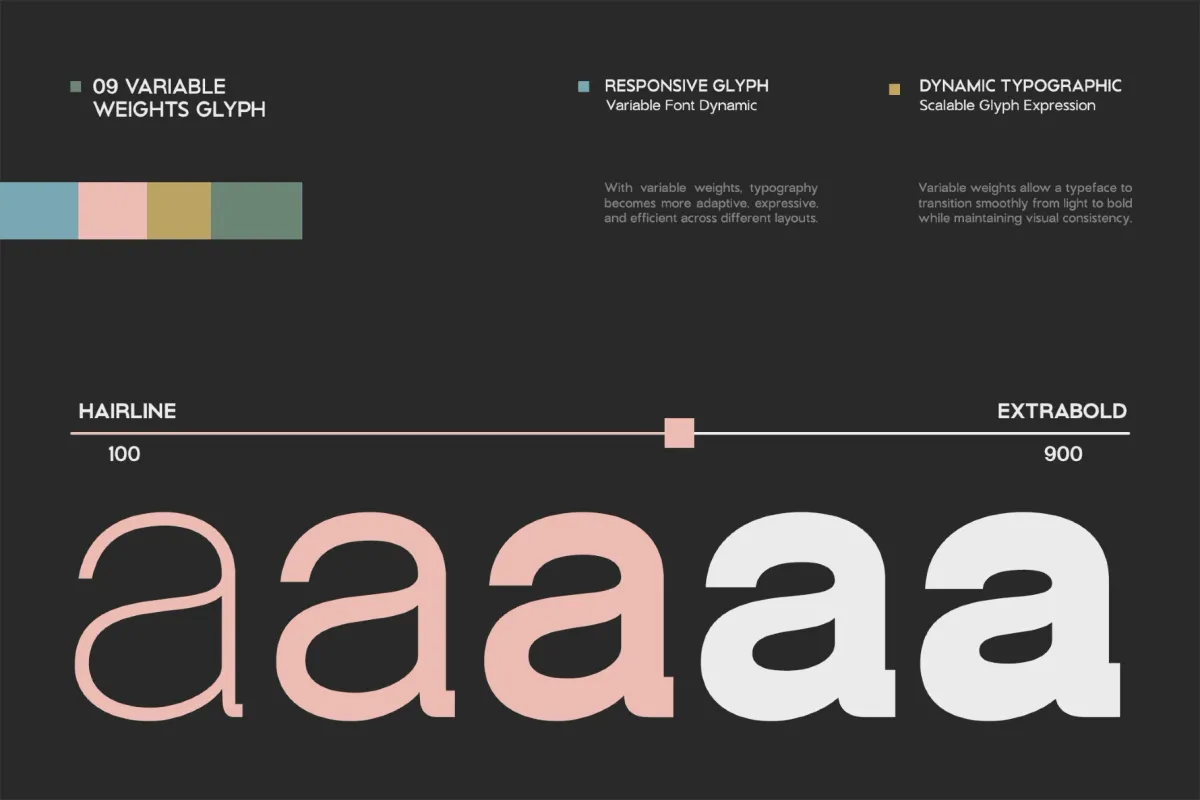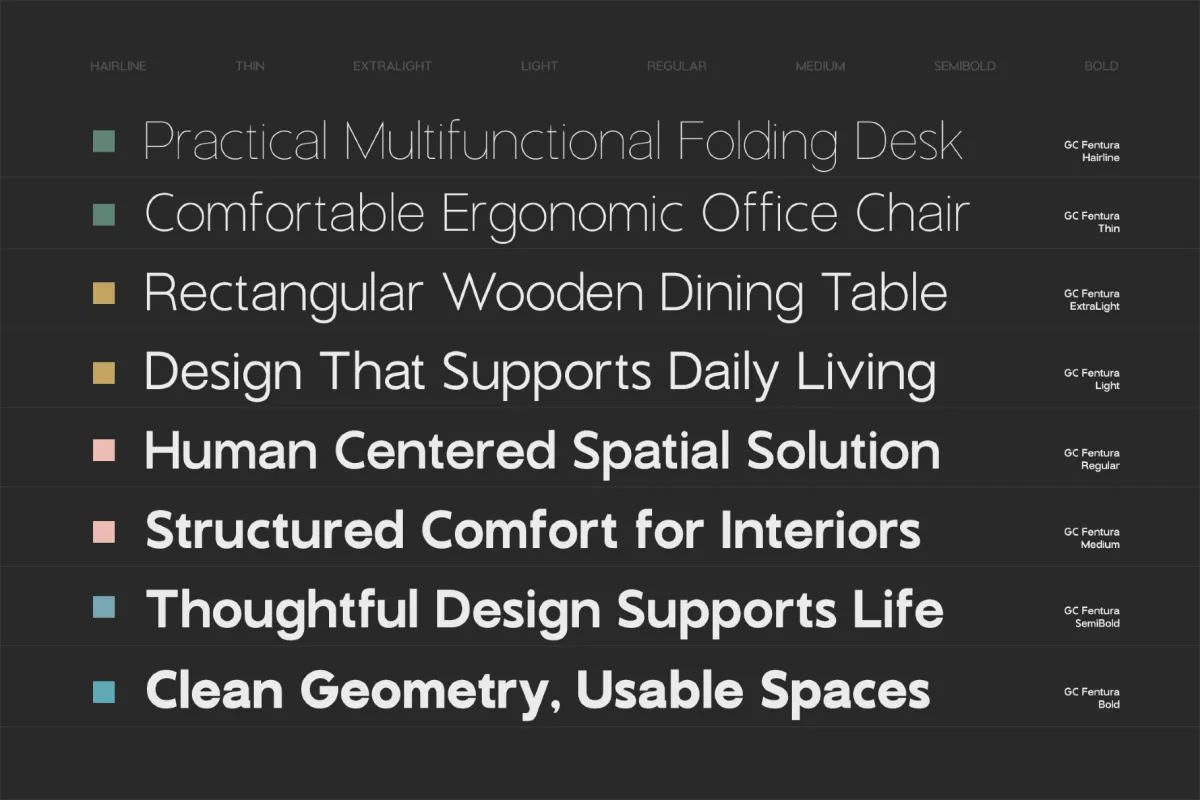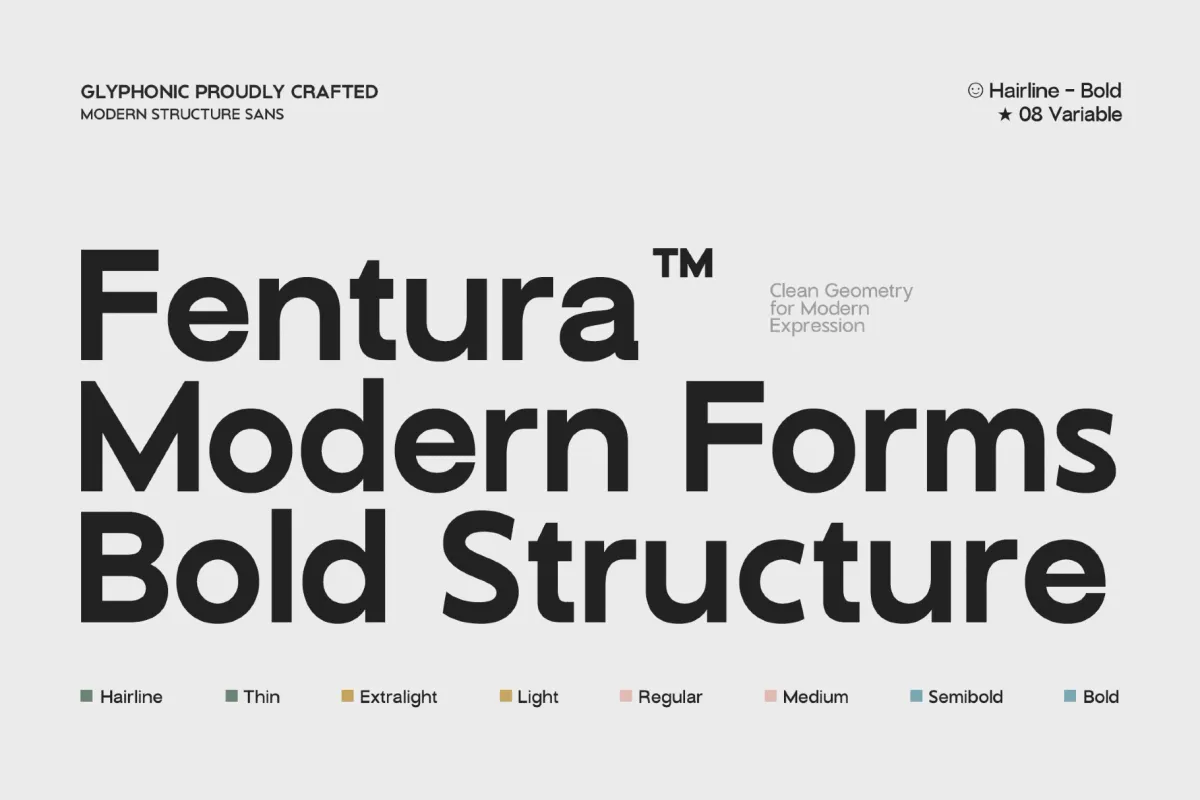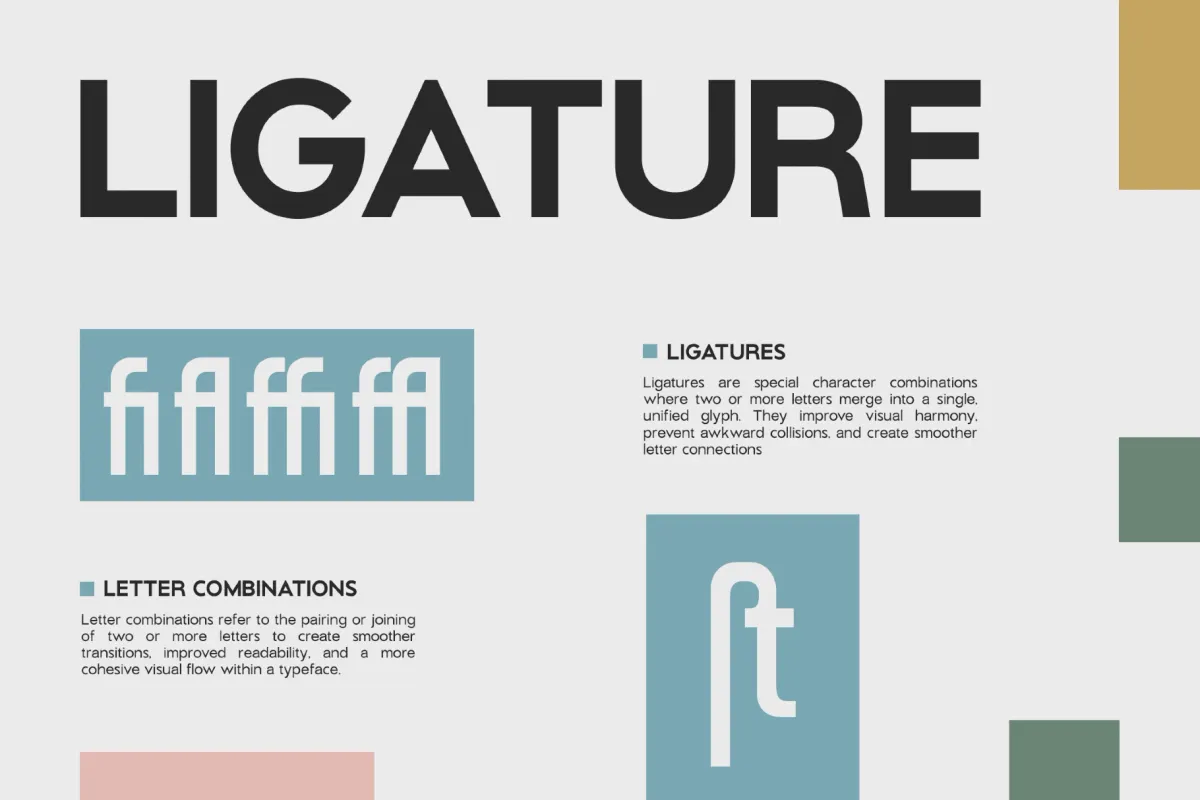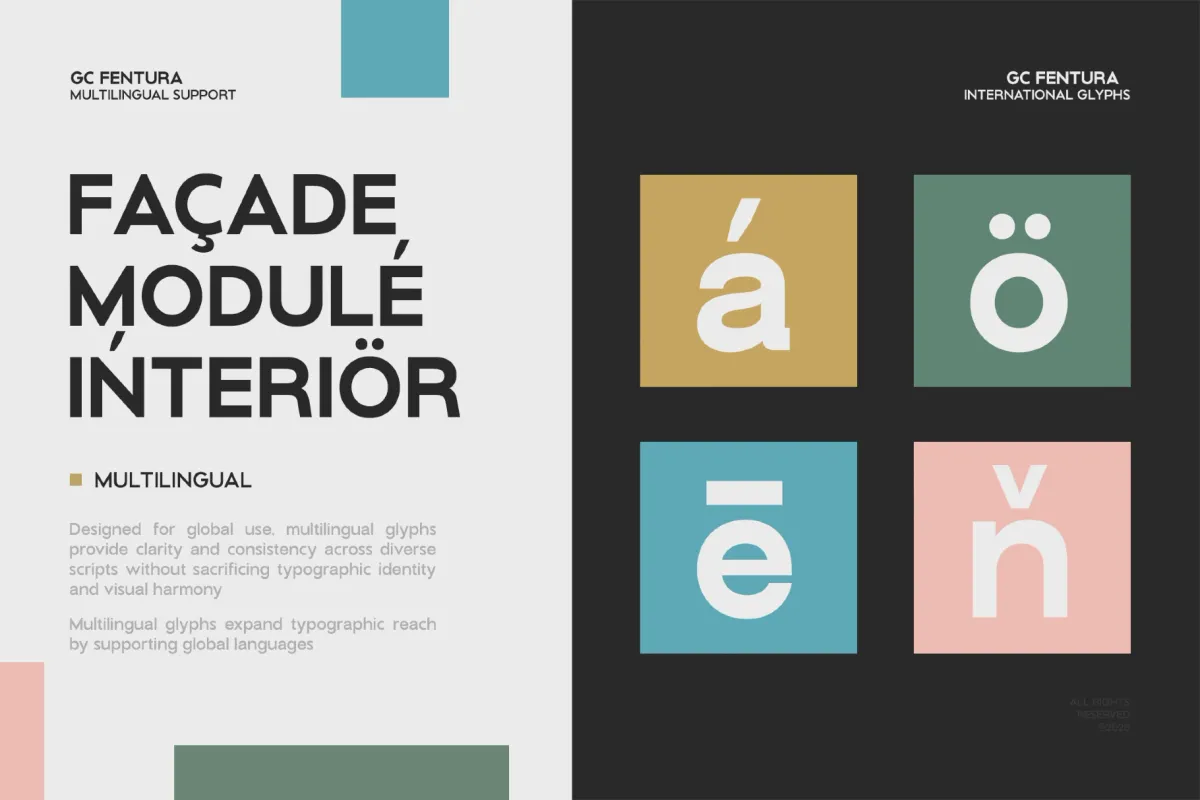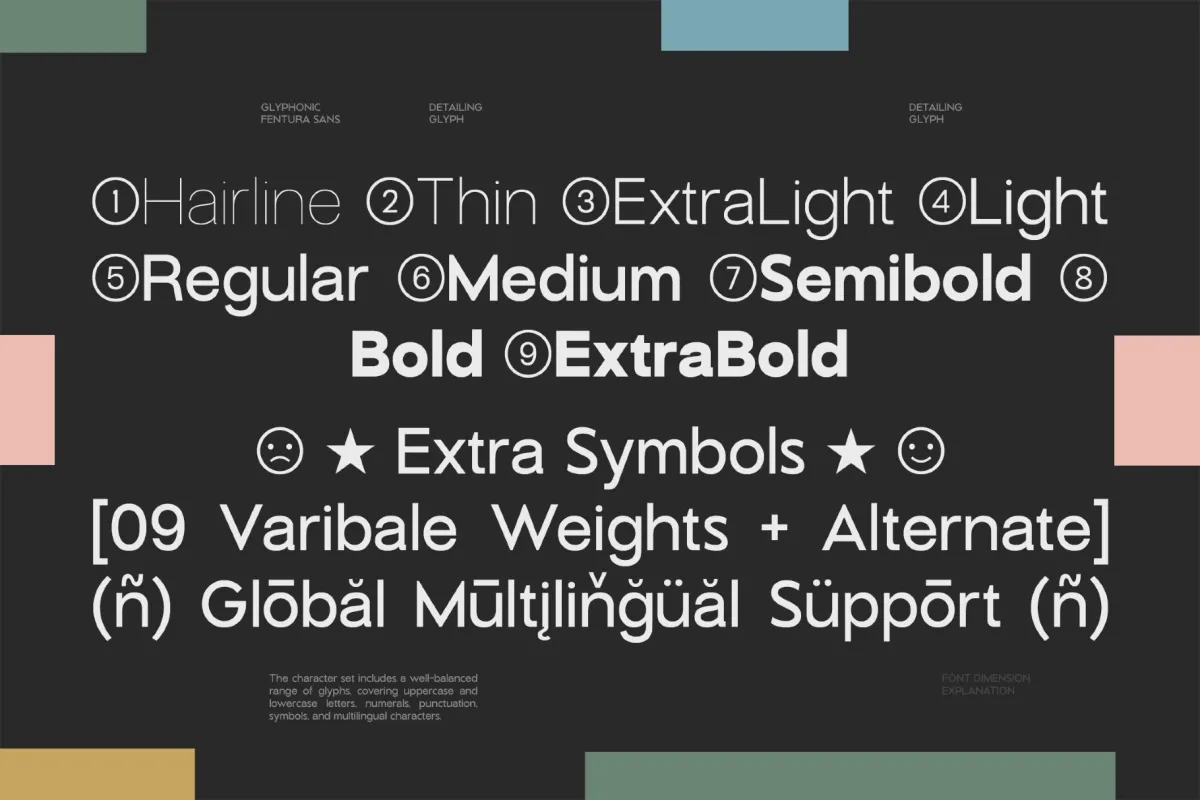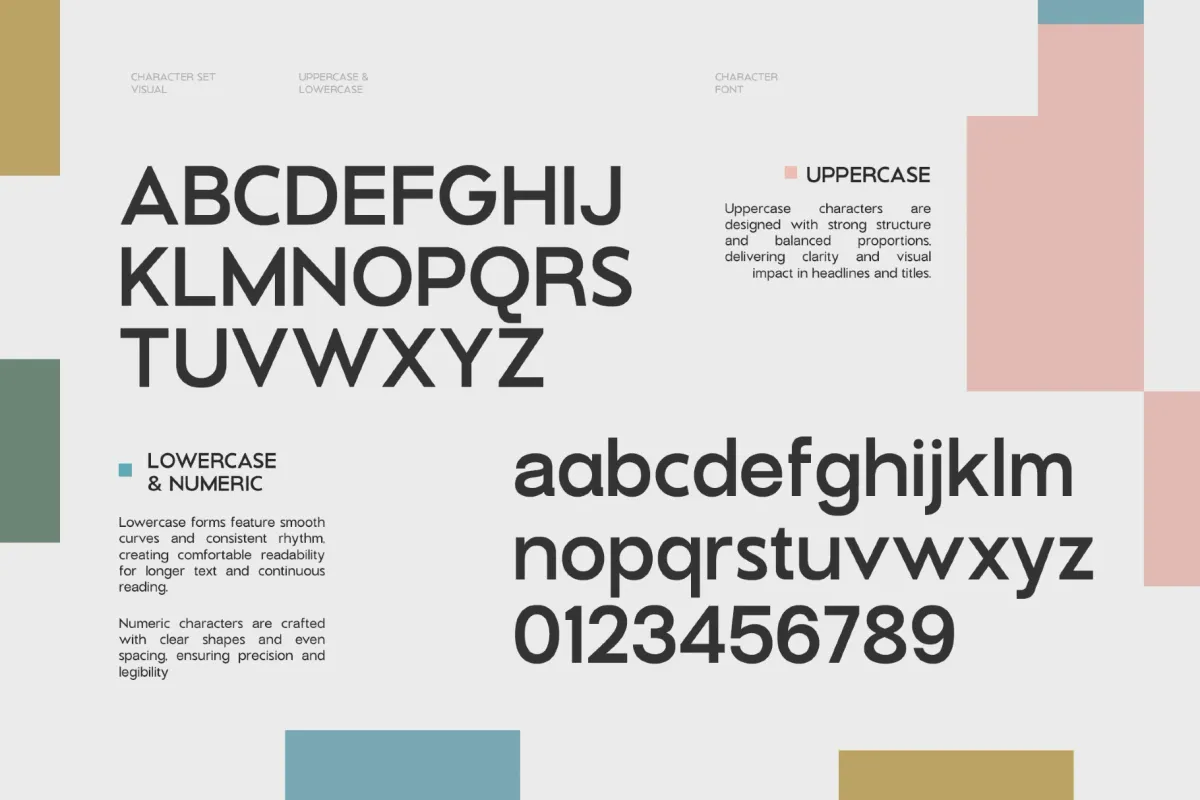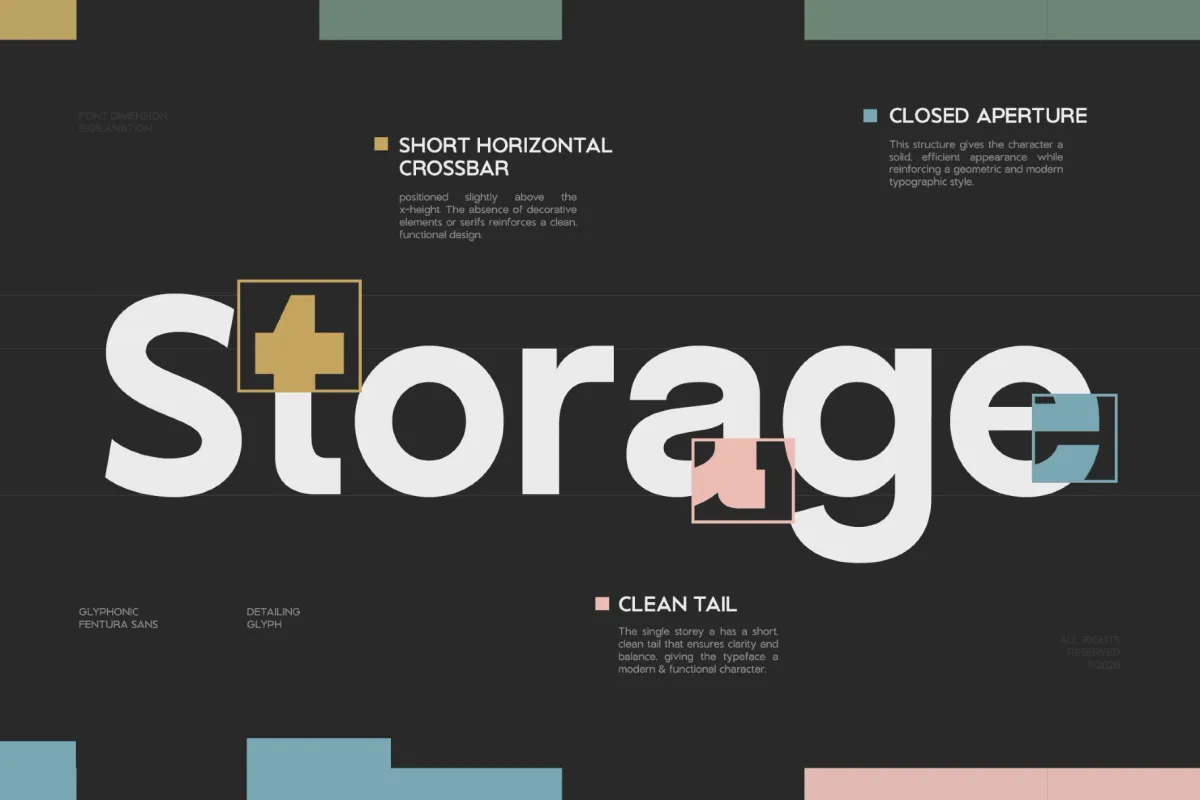
GC Fentura – Geometric Sans Serif Font
Fentura builds its letterforms on a clean geometric base — even stroke weight, balanced counters, a rhythm that stays consistent whether it's set as a caption or blown up into a headline. Nine weights move from a near-invisible Hairline to a dense Extra Bold, all sharing the same structural DNA.
Its clarity holds up across branding, editorial layouts, packaging, web interfaces, and logo work, with an extended Latin character set that reaches well beyond Western Europe into Central, Eastern, and Nordic scripts. Ligatures, stylistic alternates, and proper kerning keep longer text blocks as clean as the display sizes.
• 9 styles: Hairline, Thin, Extra Light, Light, Regular, Medium, Semi Bold, Bold, Extra Bold;
• Uppercase & Lowercase, numerals, punctuation & symbols;
• Ligatures, stylistic alternates, fractions, ordinals, superscript figures, kerning;